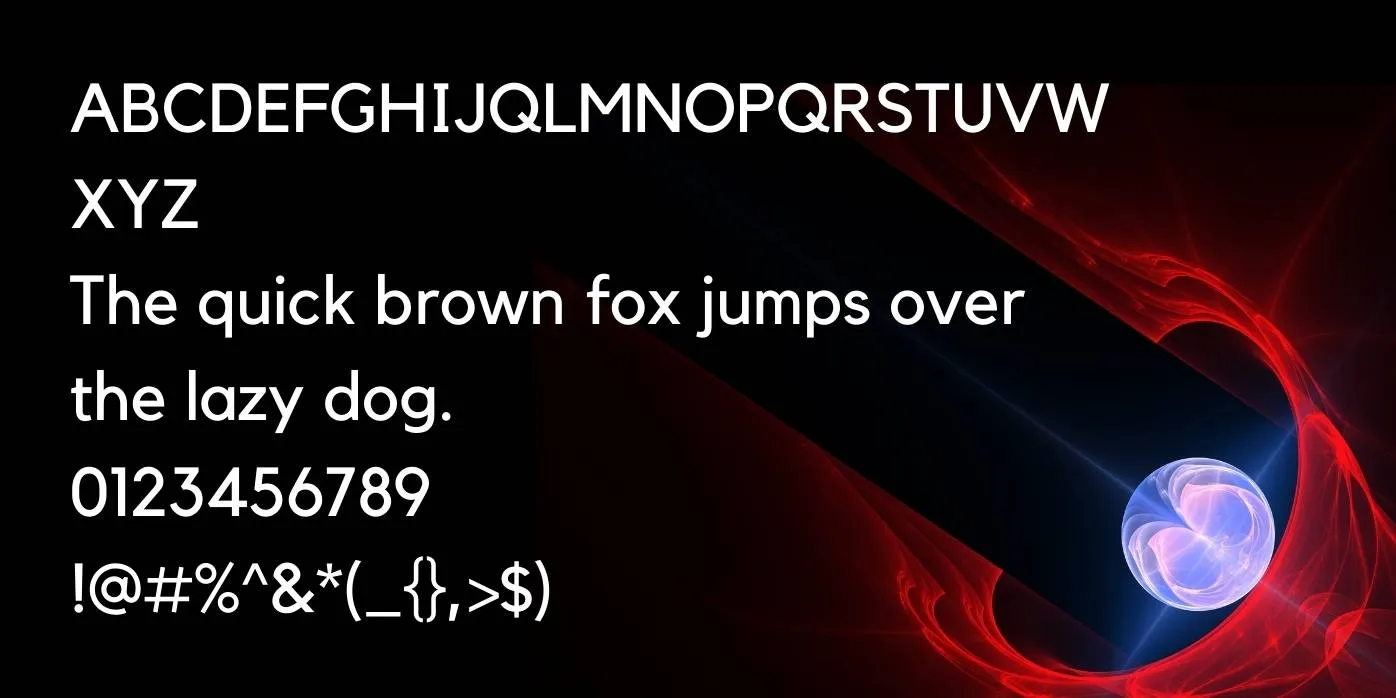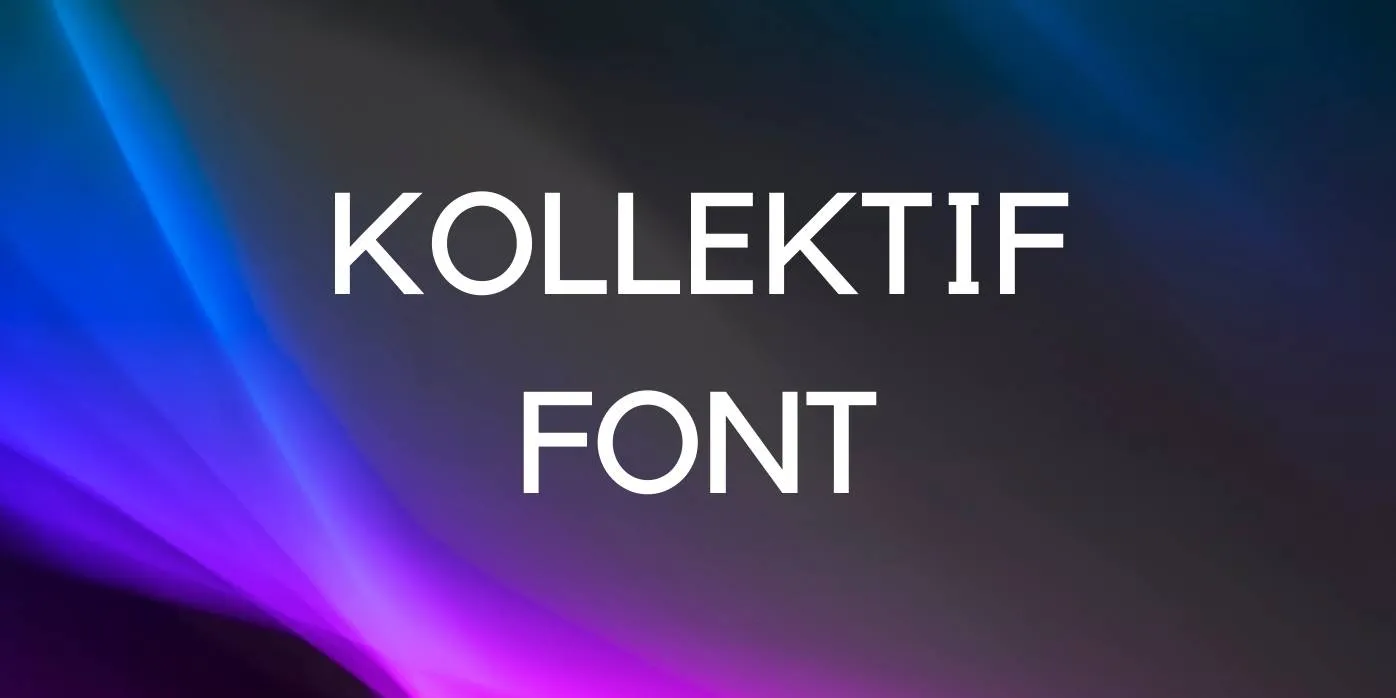
Kollektif Font
We are going to present a most standard and classy typeface known as Kollektif Font. This typeface was designed by a well-known designer named  Dogu Kaya. This font family was released in 2017. It was a sans-serif typeface.
This typeface is designed for display projects. This typeface is most popular due to its extraordinary features. It is used everywhere in the whole world for text and different projects. This Font has two different styles.
This typeface has four different weights. This typeface is famous due to its glyphs, and characters. Designers pick this font family for printing purposes and to design logos. It is the perfect typeface for social media purposes.
If you want the attention of your audience towards your projects you can use this stunning and modern typeface. This font is most useful and suitable for all designing fields. This font family provides awesome results. Because of its too many advanced features, this typeface becomes popular day by day.
That is this typeface is most useful everywhere.